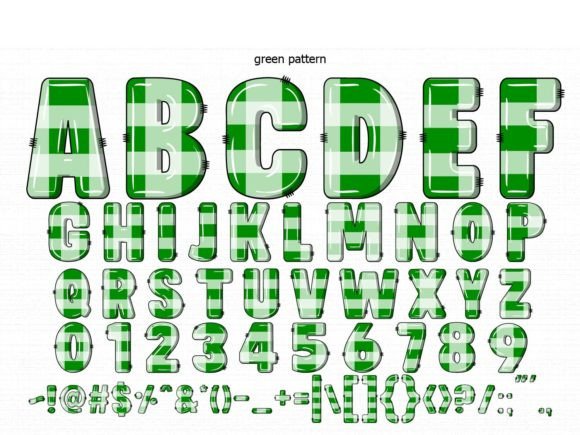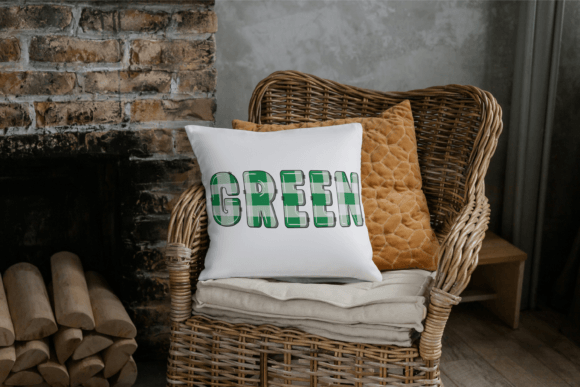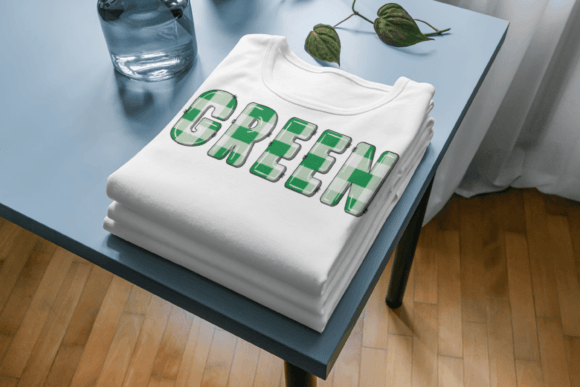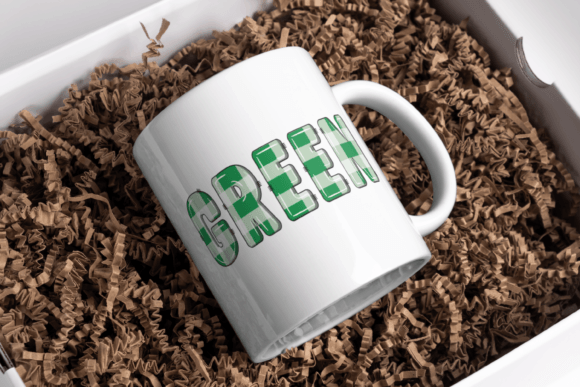
Introducing Green Pattern Font: A Delightful Choice for Kids’ Projects
Are you on the hunt for a fun and vibrant font to add a touch of personality to your kids’ projects and activities? Look no further than the Green Pattern Font! This charming font boasts a beautiful green color that’s sure to capture the imagination of children and adults alike. In this article, we’ll explore the features and benefits of the Green Pattern Font, as well as provide guidance on how to use it with various design programs and cutting machines.
A Cute and Versatile Font for Kids’ Projects
The Green Pattern Font is a beautiful children’s font that’s perfect for a wide range of projects, from educational materials and worksheets to craft projects and party decorations. Its cute green color adds a playful touch that’s sure to delight kids and make your projects stand out. Whether you’re a parent, teacher, or crafter, this font is a great choice for adding a personal touch to your kids’ projects.
Benefits of Using the Green Pattern Font
So why choose the Green Pattern Font for your kids’ projects? Here are just a few benefits:
- Adds a personal touch: The Green Pattern Font’s unique and playful design adds a personal touch to your projects, making them more engaging and fun for kids.
- Versatile: This font is suitable for a wide range of projects, from educational materials to craft projects and party decorations.
Tips for Using the Green Pattern Font
Here are a few tips for getting the most out of the Green Pattern Font:
- Experiment with different colors: While the green color of this font is certainly eye-catching, don’t be afraid to experiment with different colors to match your project’s theme or style.
- Pair with complementary fonts: The Green Pattern Font pairs well with a variety of other fonts, so feel free to get creative and experiment with different combinations.
- Use for a variety of projects: From educational materials to party decorations, the Green Pattern Font is versatile enough to be used for a wide range of projects.